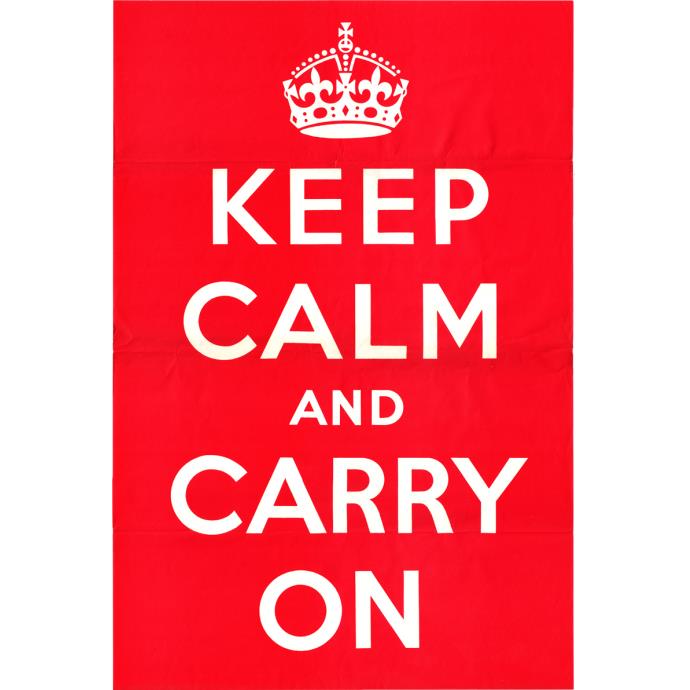
Keep Calm Font
CampaignThe Keep Calm poster is a motivational and inspirational poster that originated in the United Kingdom during World War II. The poster was created as a way to boost morale and encourage people to stay calm and focused during times of crisis or uncertainty. The poster has a red backdrop with white writing that reads "KEEP CALM AND CARRY ON" in bold, capital letters with an image of the crown above.
The Keep Calm Medium font designed by K-type is most likely the font used for the text. There are three weights of the font family—Light, Regular, and Medium—each having an italic variation. The Keep Calm font family is usually used for commercial purposes, but you can download the Keep Calm Medium font for free for personal purposes only. For commercial licensing click here.